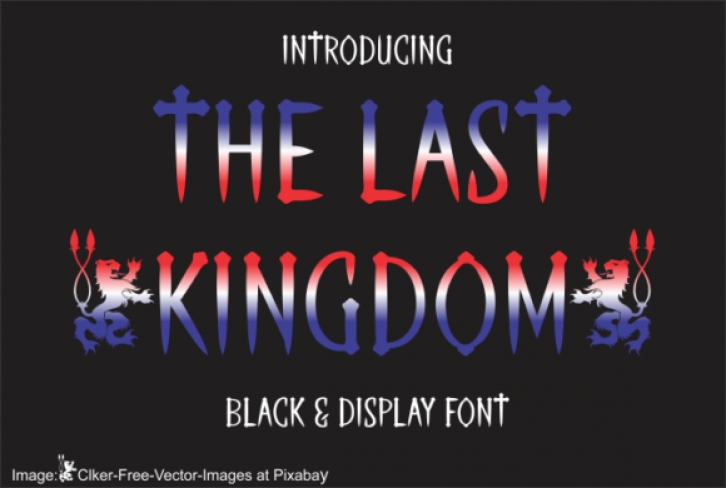
The Last Kingdom is a unique and interesting display font. Incredibly versatile, this font will fit a wide pool of designs.
Fall in love with its incredibly stylish look and use it to create spectacular designs!